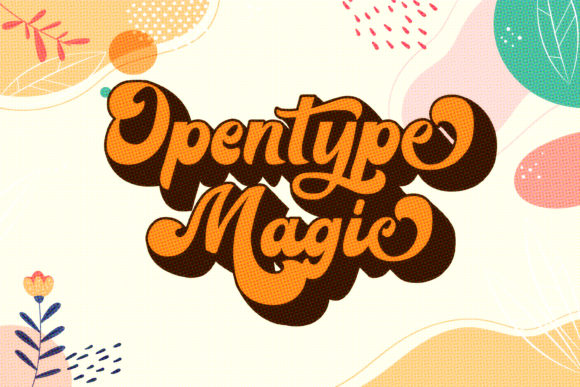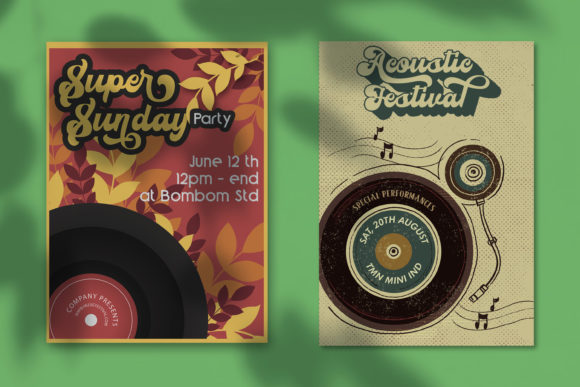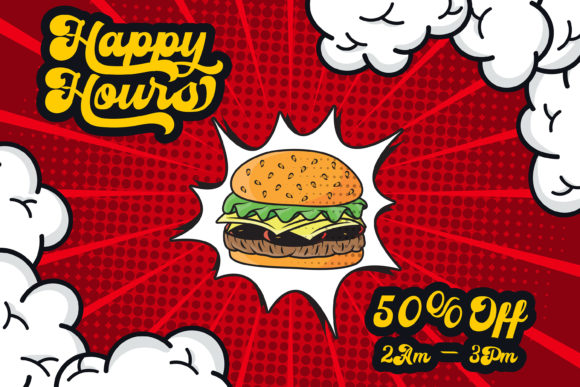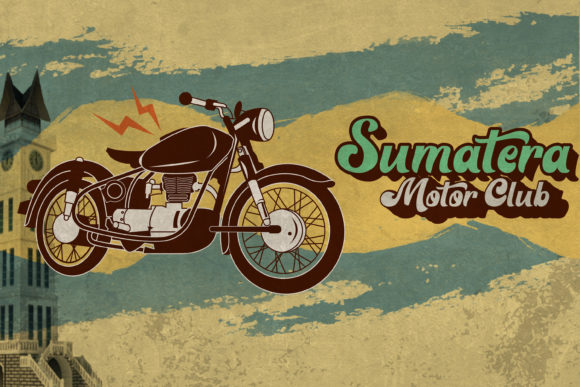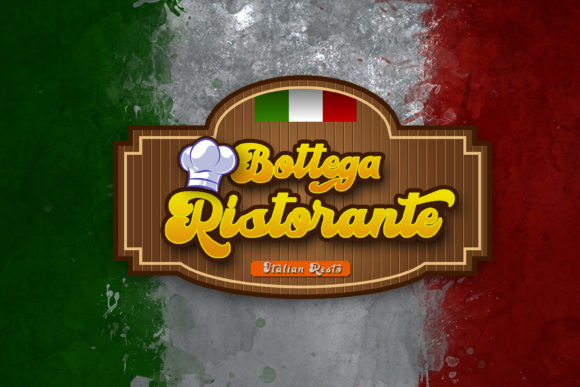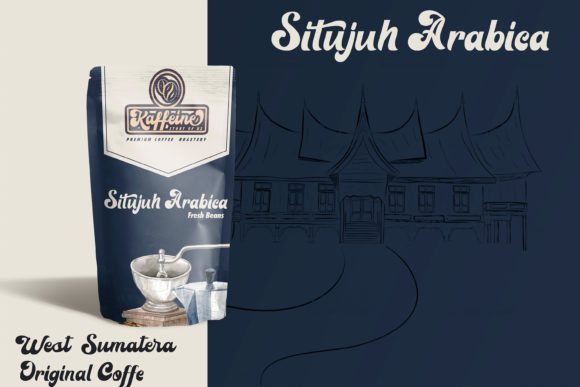
Introduction to Sianok Valley Font
Sianok Valley feels playfully nostalgic and delivers an incredible vintage aesthetic.
Use this handwritten font to add that special retro touch to any design idea you can think of .